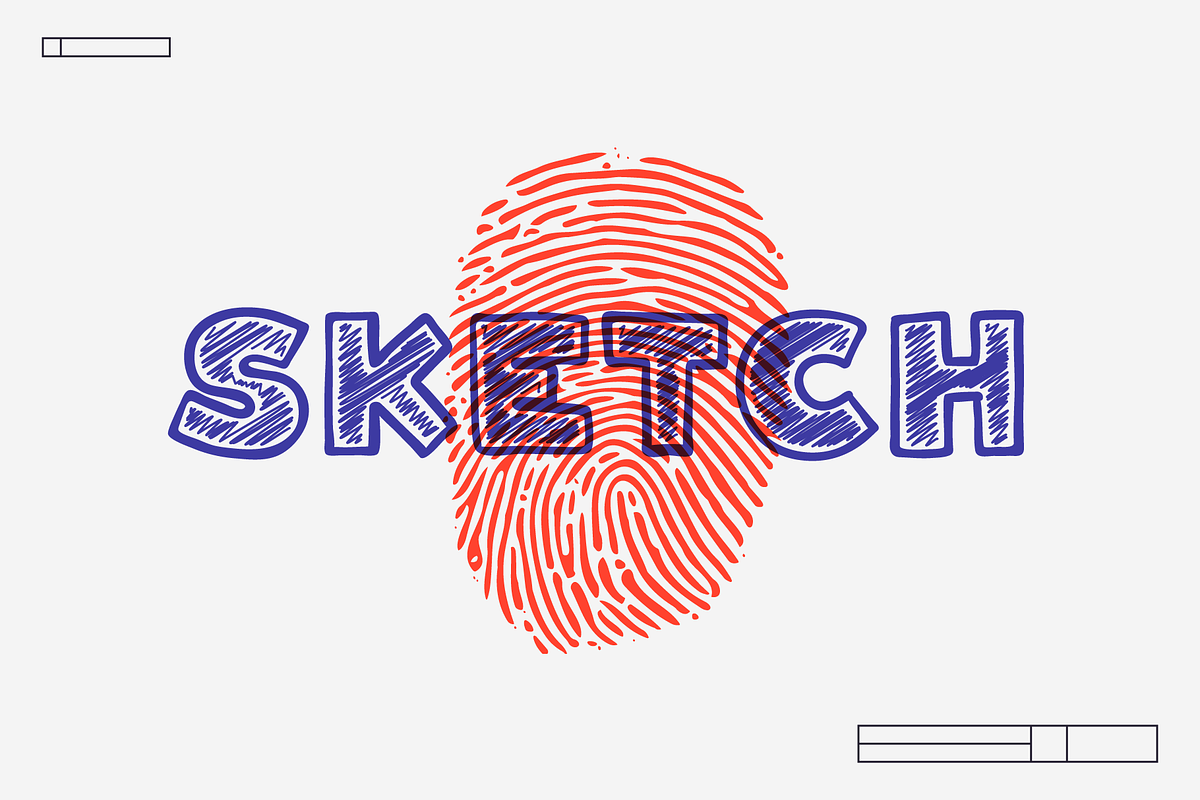
Please note, to use this font for commercial purposes, you must purchase the full version. White Marker is a creative and expressive sketching font that adds a hand-drawn, artistic touch to your designs. With its bold, sketch-like letterforms, this font is perfect for logos, branding, posters, and artistic projects that need a personal, crafted feel. Whether you're designing for a creative brand, a handmade product, or an event with a unique theme, White Marker brings an organic, artistic vibe to your work. Test it out and enjoy free download access for personal use. Experience the creative flair of White Marker Sketching Font Free Download before purchasing the commercial license. Add a personal, sketchy touch to your designs with White Marker.